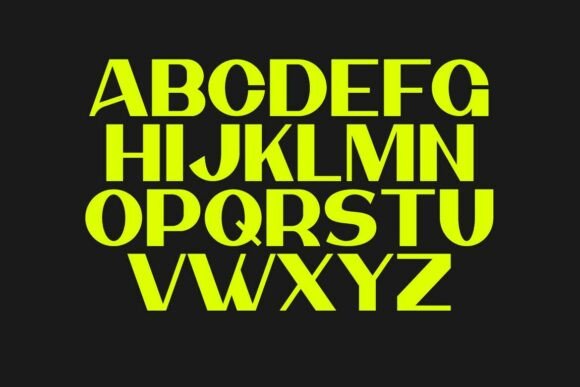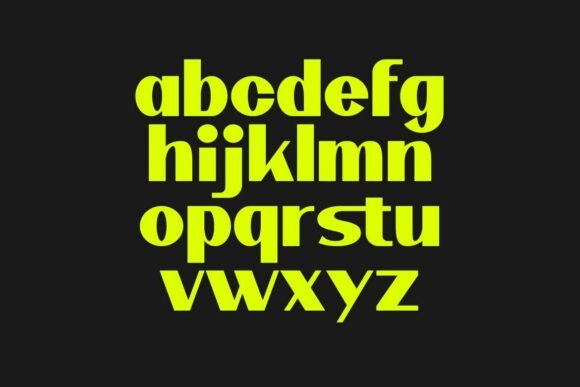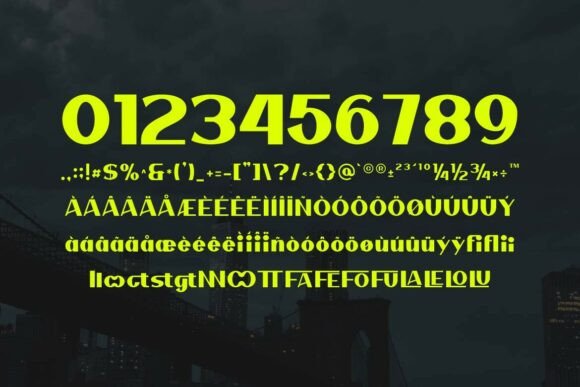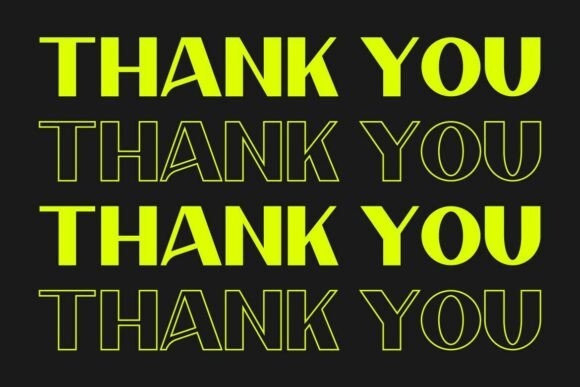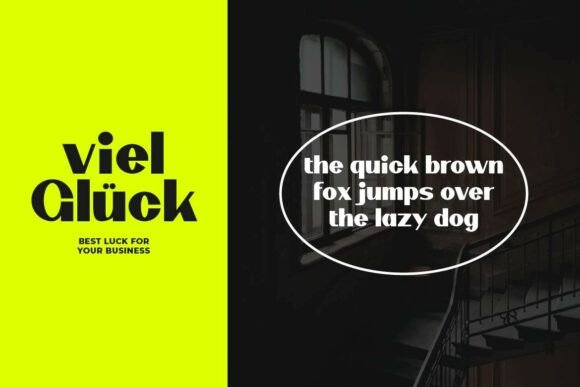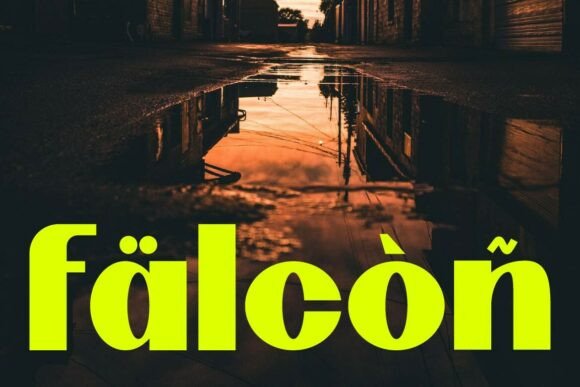
Introducing Fortella Font: The Epitome of Sophistication and Elegance
In the realm of typography, a font can make or break the visual identity of a brand, product, or editorial. For designers and crafters seeking a typeface that exudes sophistication, modernism, and elegance, Fortella Font is an exceptional choice. This sans serif font masterfully blends clean lines, balanced proportions, and smooth curves to create a truly unique and versatile typeface.
The Design Philosophy Behind Fortella
Fortella’s design is rooted in the principles of modernism, with a focus on simplicity, clarity, and precision. The font’s sleek lines and streamlined appearance evoke a sense of contemporary style, making it an ideal choice for luxury brands, fashion editorials, and high-end packaging. However, what sets Fortella apart is its subtle elegance, which adds a touch of sophistication and refinement to any design.
Key Features of Fortella Font
- Clean Modernism: Fortella’s sans serif design ensures a clean and minimalist aesthetic, perfect for modern branding and editorial projects.
- Balanced Proportions: The font’s carefully crafted proportions ensure optimal legibility and harmony, making it suitable for a wide range of applications.
- Smooth Curves: Fortella’s subtle curves add a touch of elegance and sophistication, elevating the font from a simple sans serif to a truly refined typeface.
- Versatility: Fortella is designed to be versatile, making it suitable for various applications, from branding and website headers to luxury packaging and minimalist logo design.
Applications of Fortella Font
Fortella’s unique blend of modernism and elegance makes it an excellent choice for a variety of design projects, including:
- Branding: Establish a strong visual identity with Fortella’s sophisticated and modern design.
- Fashion Editorials: Add a touch of luxury and elegance to your editorial designs with Fortella’s refined aesthetic.
- Website Headers: Elevate your website’s typography with Fortella’s clean and modern design.
- Luxury Packaging: Fortella’s sophisticated design makes it an excellent choice for high-end packaging and product design.
- Minimalist Logo Design: Create a simple yet effective logo with Fortella’s clean lines and elegant curves.
Why Choose Fortella Font?
In a world where typography plays a crucial role in visual communication, Fortella Font stands out as a exceptional choice for designers and crafters seeking a sophisticated and elegant typeface. With its unique blend of modernism and refinement, Fortella offers:
- Unique Visual Identity: Establish a distinctive visual identity with Fortella’s refined and modern design.
- Improved Legibility: Fortella’s balanced proportions and clean lines ensure optimal legibility across various applications.
- Versatility: Use Fortella across multiple design projects, from branding and editorials to packaging and logo design.
- Elegance and Sophistication: Add a touch of luxury and refinement to your designs with Fortella’s subtle elegance.
Fortella Font is a sophisticated sans serif typeface that seamlessly blends clean modernism with subtle elegance. Its sleek lines, balanced proportions, and smooth curves make it an exceptional choice for designers and crafters seeking a refined and versatile font. Whether you’re working on branding, fashion editorials, website headers, luxury packaging, or minimalist logo design, Fortella is an excellent choice for elevating your visual identity and adding a touch of sophistication to your designs.